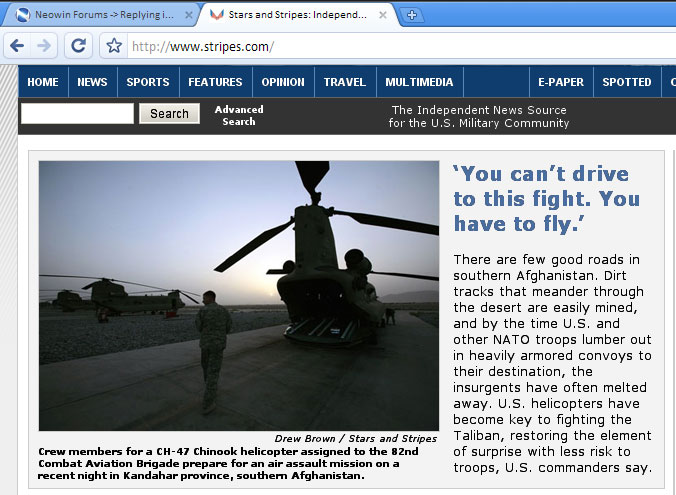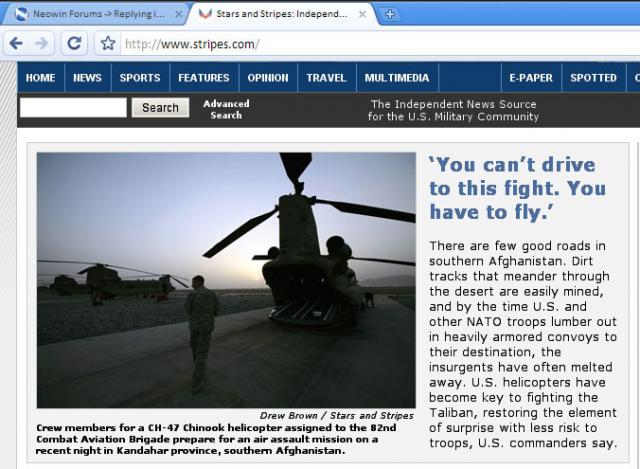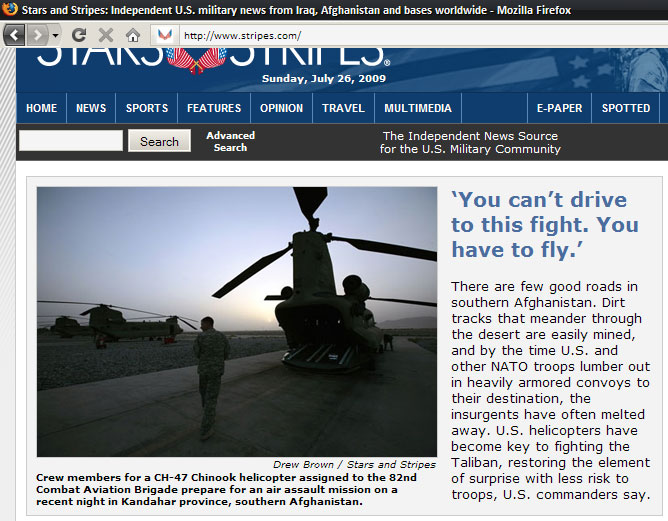
The ONLY reason that I do not use Google Chrome is for one reason and one reason only. The font smoothing, it's is horrid. Even when I run GDI++ in the background (software that makes fonts very smooth) the fonts are still sharp and choppy. Is there any way I can get Google Chrome's fonts smoother? Like in FireFox or Safari?
It seems like the 3rd party software only helps Firefox and Safari a little, seeing how Safari already has a built in font smoother. You can see what I mean below.
Google Chrome:
Firefox:
Safari:
Unlike Safari (which uses its own Text renderer [which itself is ported from Mac OSX]), and Firefox (which again, now uses Cairo I believe to handle Text rendering), Chrome uses the native OS's Text renderer. Check to see if you have ClearType enabled and see if that makes a difference.
Yeah I got ClearType, I even downloaded the power toy from Microsoft's website to even make the ClearType more noticable. Google Chrome still has problems with font smoothing.
I feel like the font rendering in Chrome looks so much better than the others (from the screenshot at least).
What you see on Chrome is the expected result with ClearType enabled. You will notice the difference if you disable ClearType. I think you must have done something to Firefox to change its default font rendering (the font is shorter as well).
This thread confuses me.
1) I'm on Firefox right now. My fonts look nothing like the ones in your screenshot. My font rendering looks like your Google Chrome screenshot. Are you sure that's a screenshot from Firefox? If so, what version?
2) I'm a little confused by what your request is. Do you WANT those bold, blurry fonts from your Firefox and Safari screenshots? They look absolutely terrible, so I'm assuming that this isn't the case. I'm guessing that your fonts are blurry for some reason, and you're trying to fix it? I dunno.
So, did you get your screenshots mixed up or something? Nothing about the OP makes sense to me.
Quartz renders text truer to the font at the cost of looking blurrier than Cleartype.
There are people who like it this way and some that don't. It's all a matter of personal preference.
Yeah, I've known that OSX has blurrier fonts, but I didn't know that the screenshot was showing the OSX rendering. I didn't remember the OSX fonts being THAT blurry, so I was thrown off, thinking something was unintentional with the font rendering. Additionally, I've never seen a side-by-side shot before. It's quite a stark difference.
If he was aiming for Windows style smoothing, then yes it would be correct, but he's not.
Even then, we're talking about the wrong thing really, the screenshots show the same style of smoothing but different kinds of hinting (Windows hinting, some Freetype configuration and then OS X hinting).
The hinting people prefer is subjective, I prefer OS X's since it keeps the letter forms more accurate while not being overly fuzzy (i.e. no hinting), but then again at the distance I'm sitting from my monitor the glyphs still look "crisp".
I have the same problem. I have clear type enabled and my font settings are identical in firefox & chrome. I use winxp. Here are some screenshots which you can clearly see the difference in, you will have to click on the images to view them full size otherwise you won't see the differences...